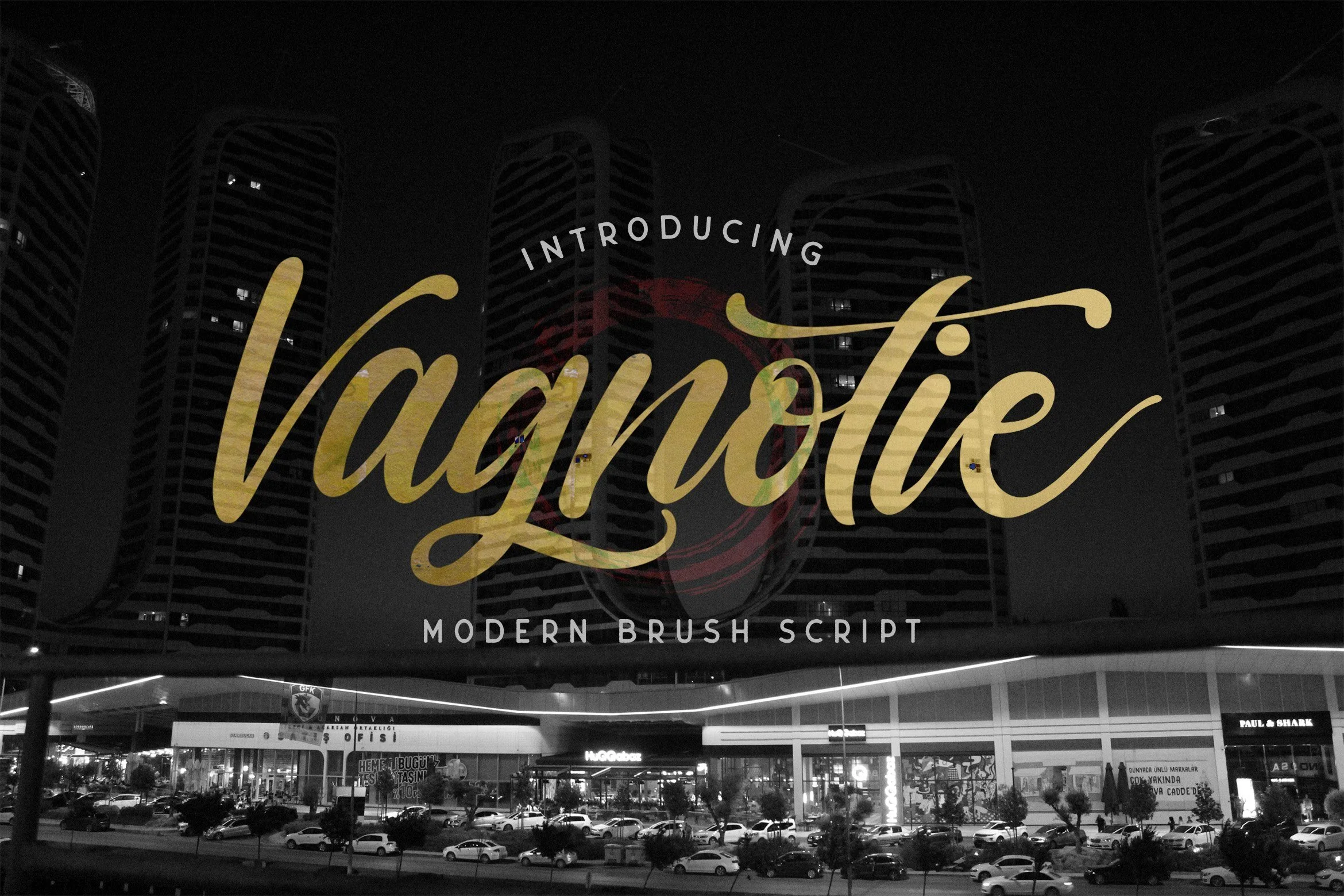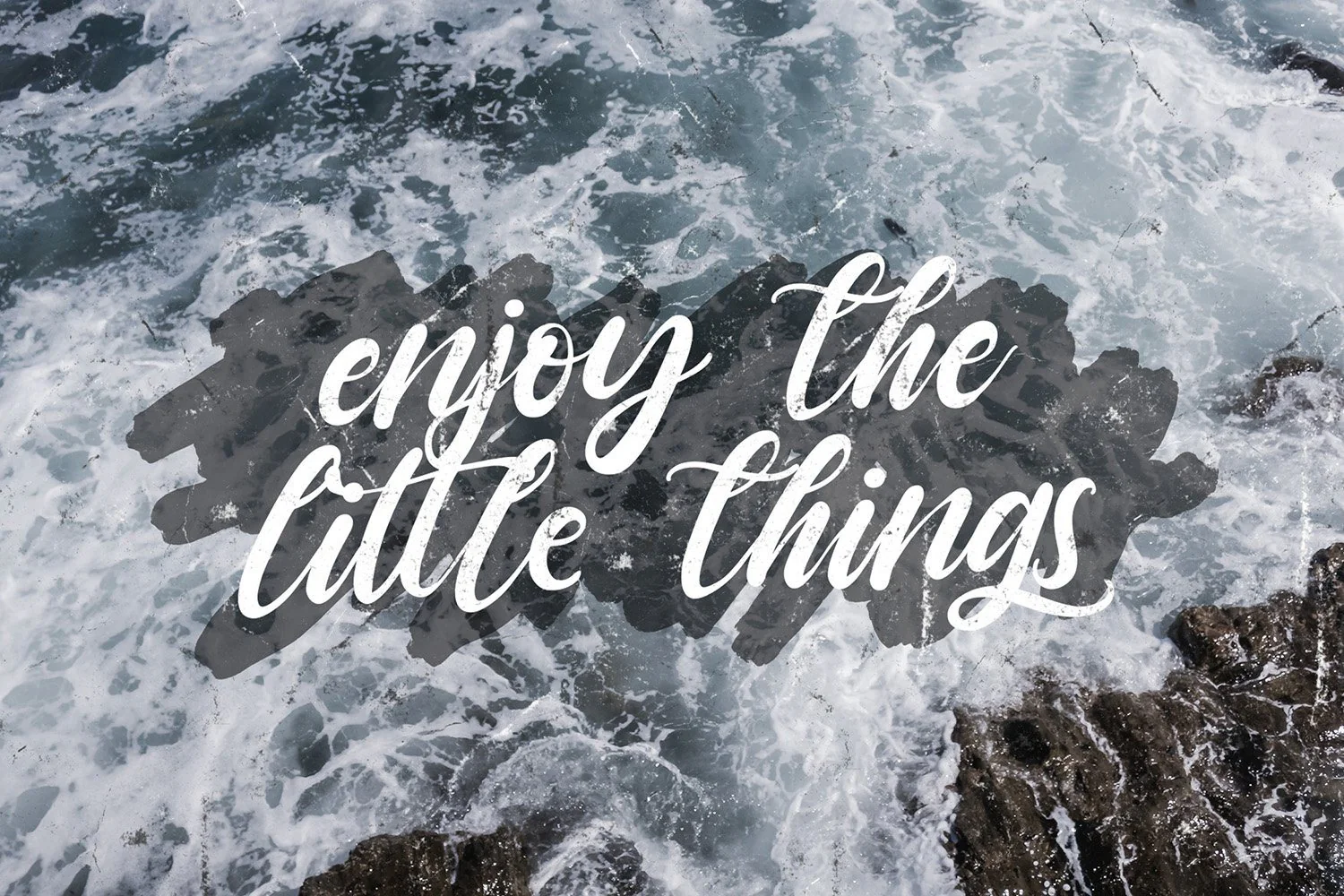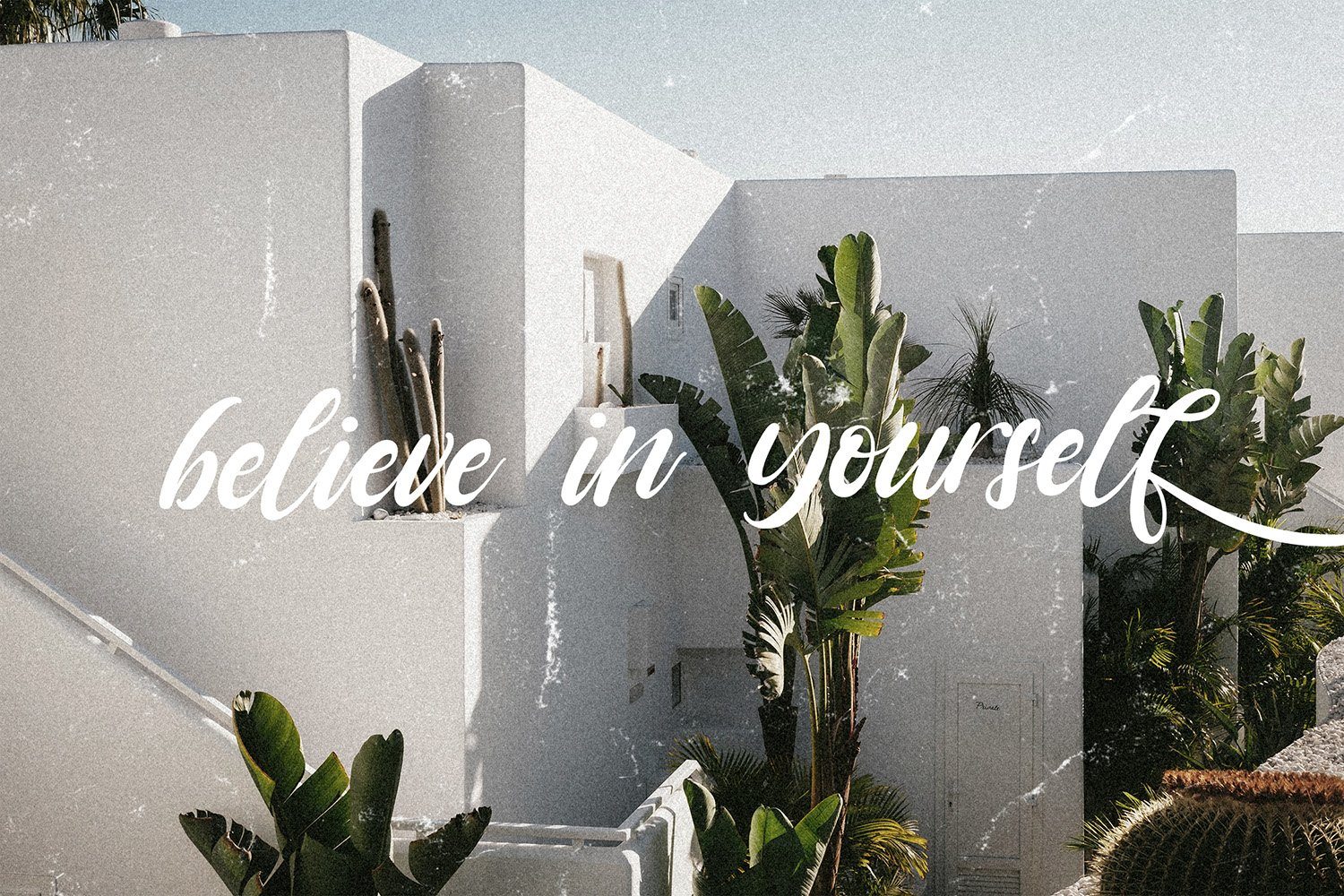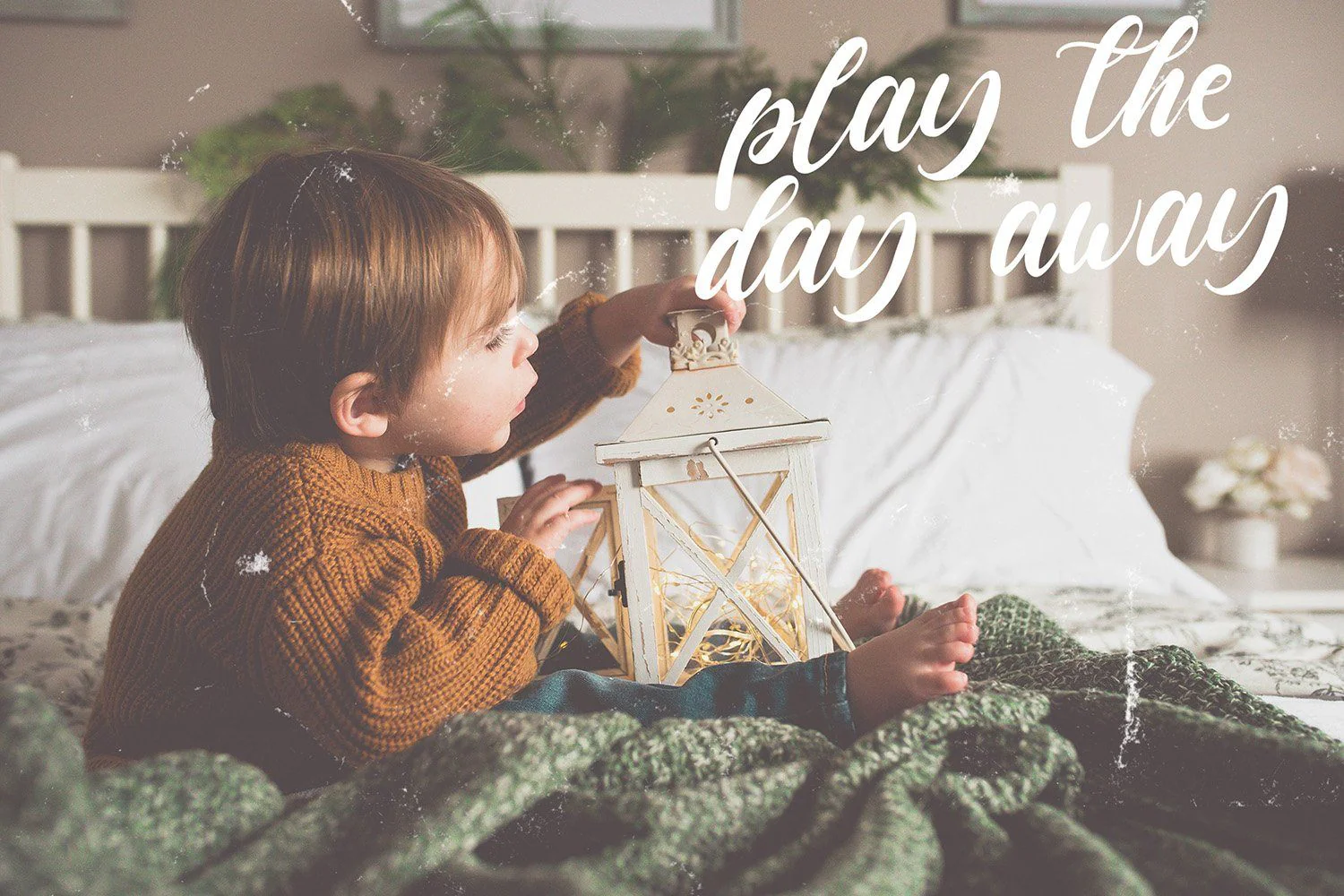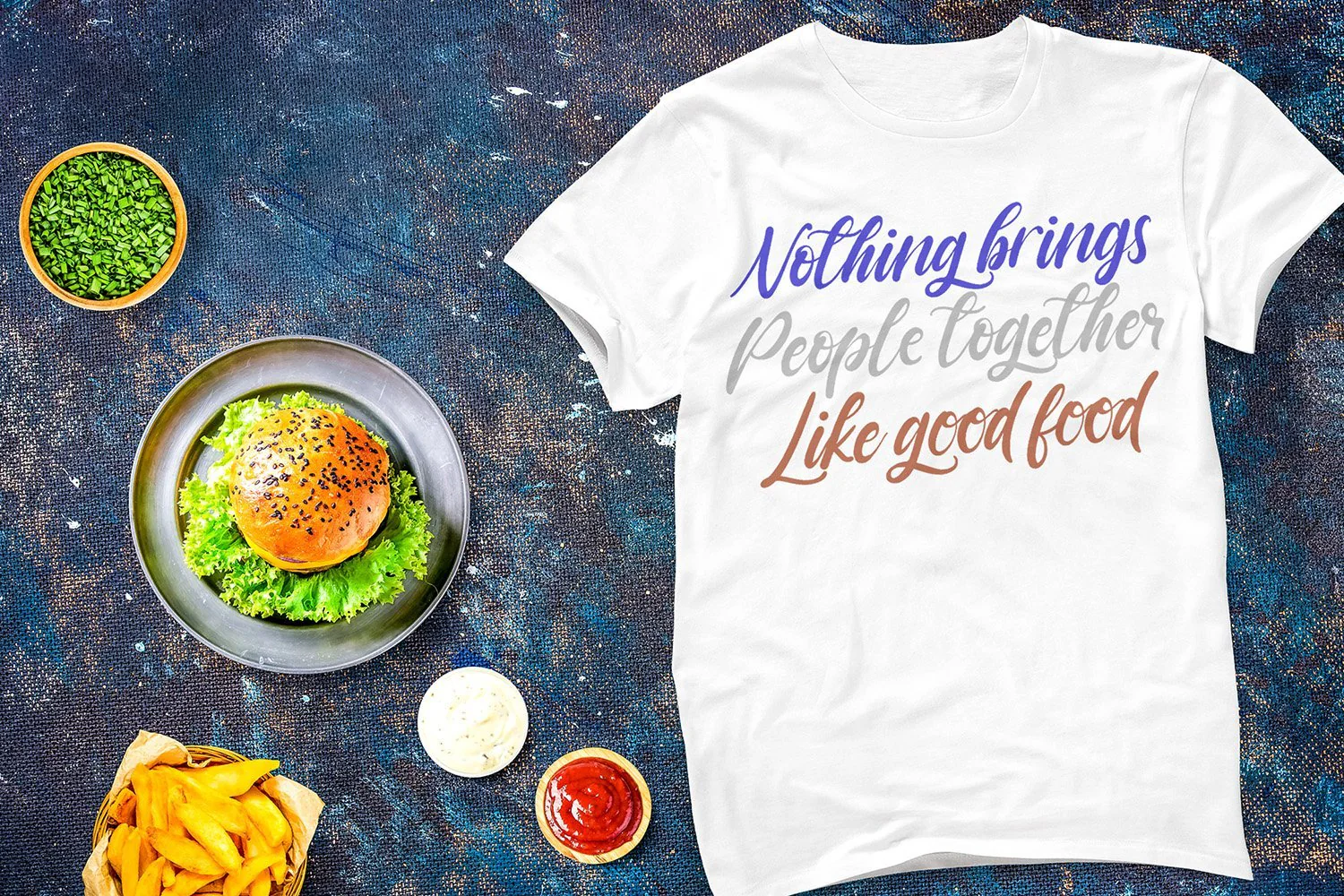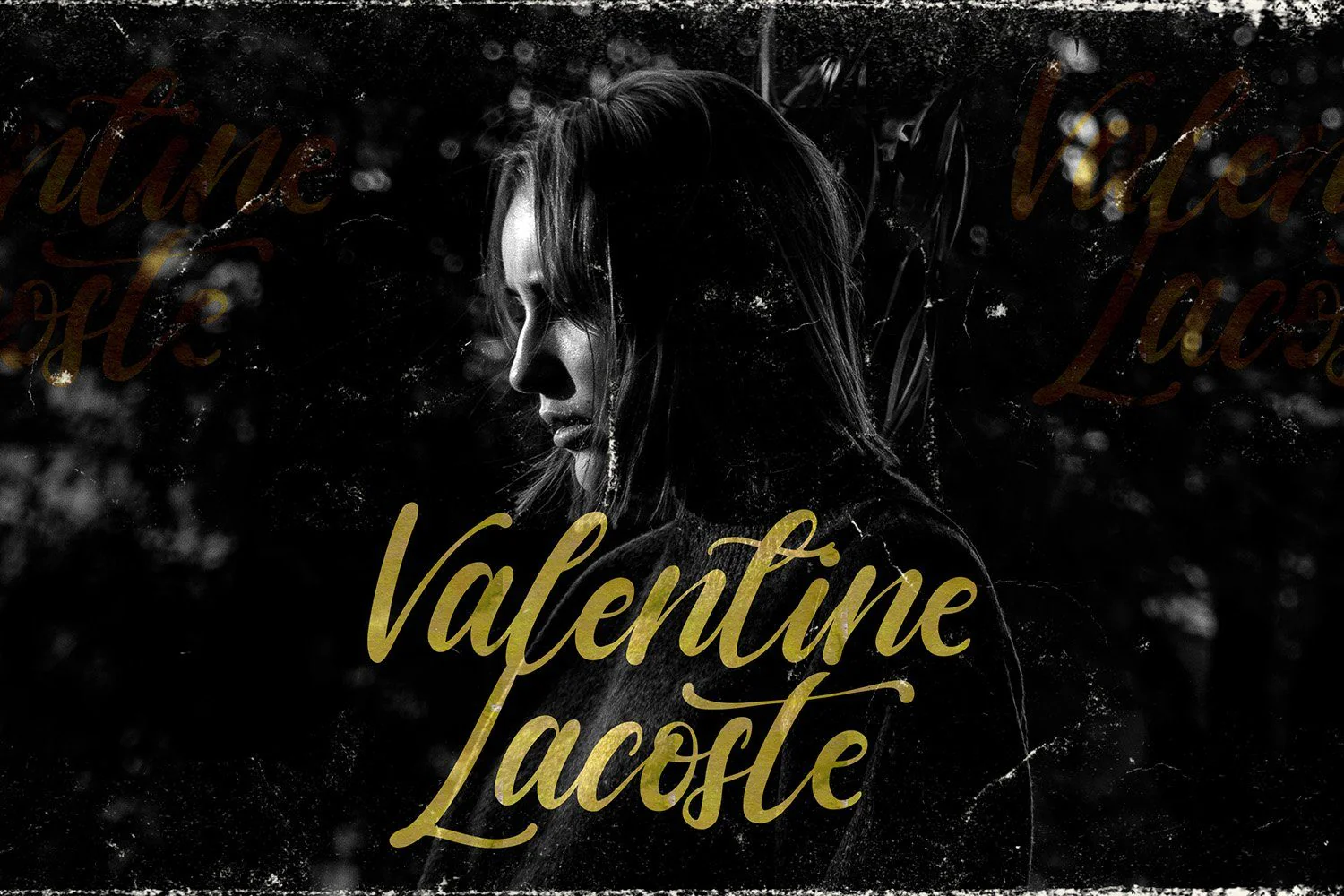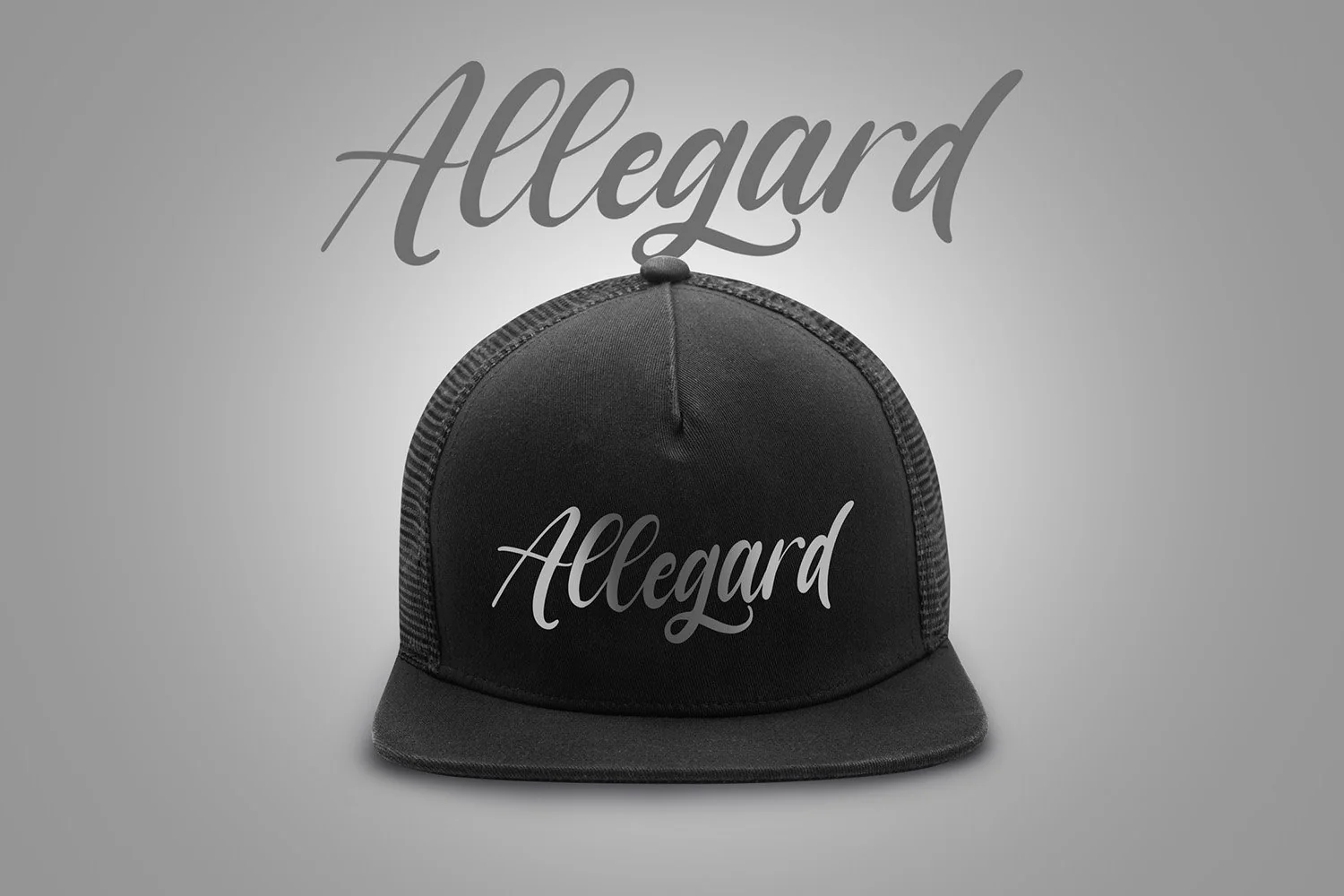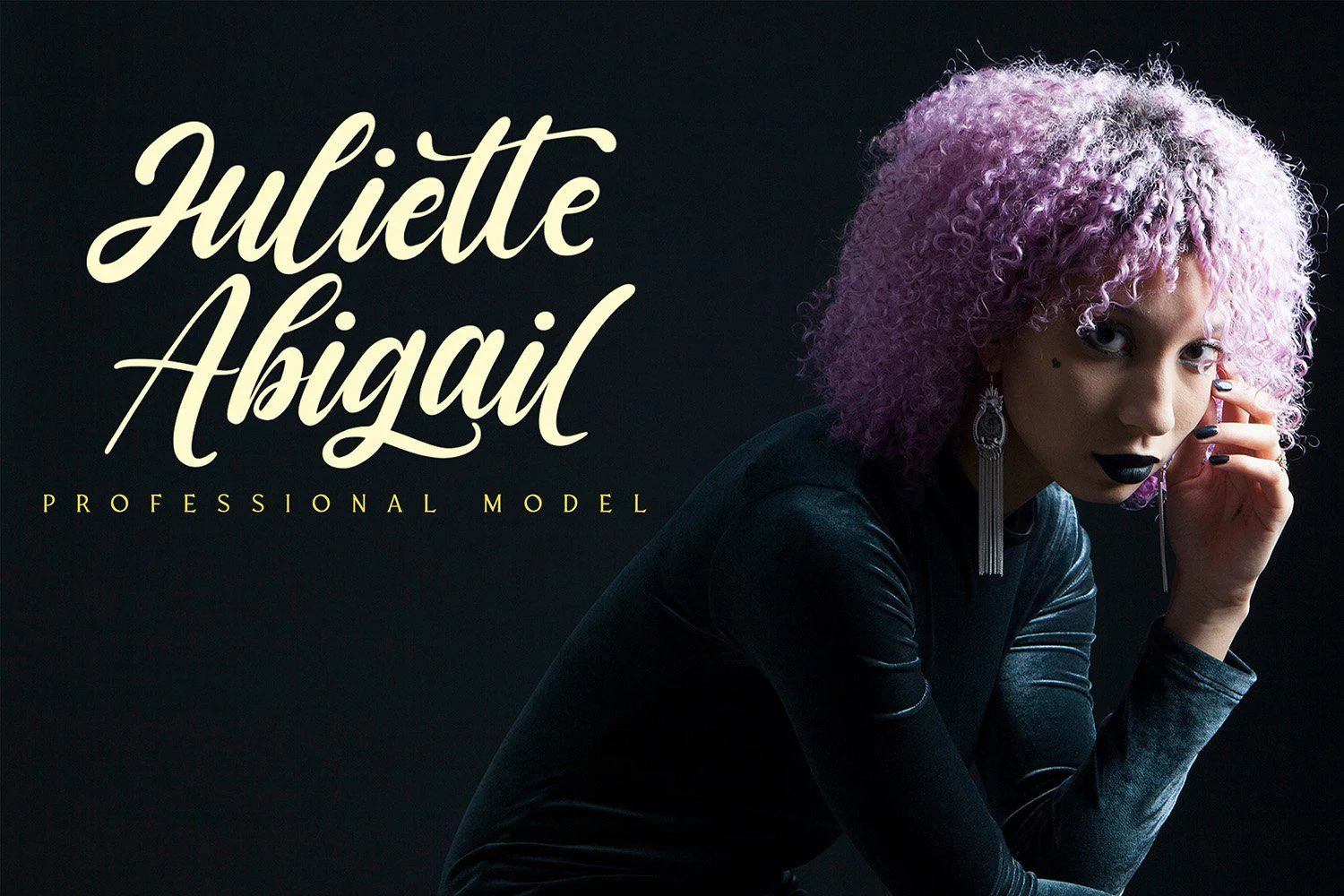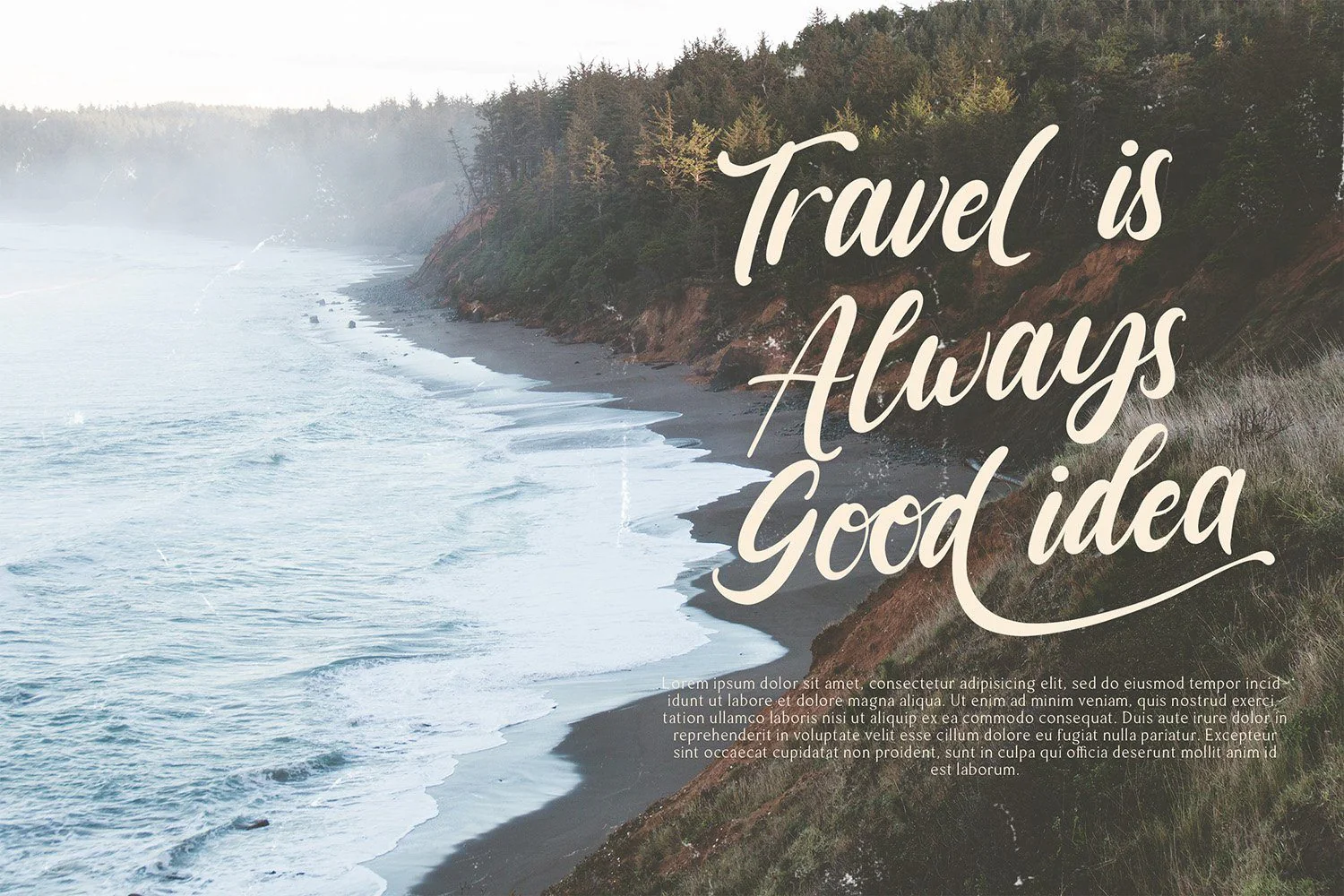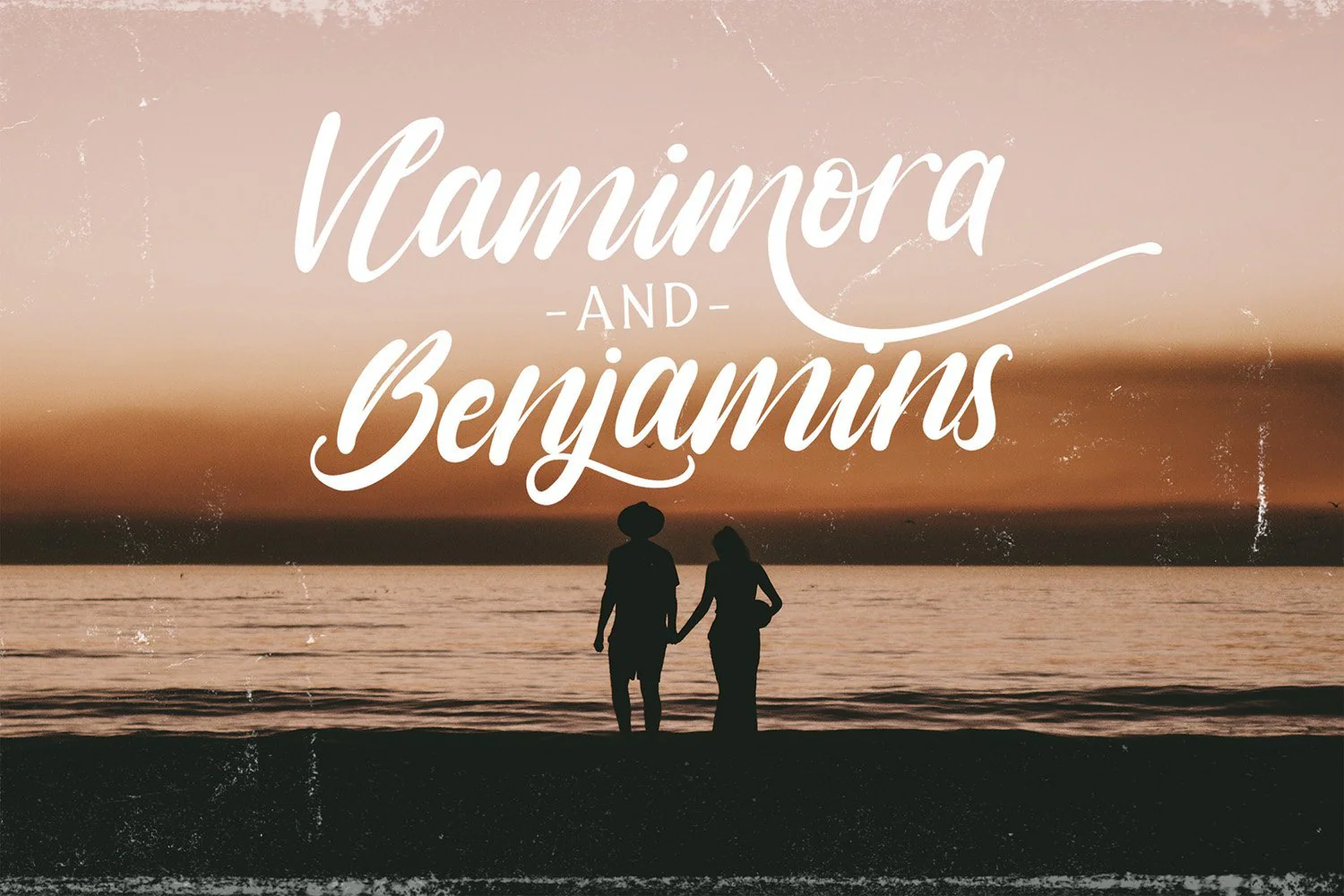
Vagnotie - Modern Brush Font
Introducing Vagnotie - Modern Brush Font
Vagnotie is a Script Font with Modern Brush Style. The Vagnotie font made with digital brush pen strokes that making this font look authentic. This font is perfect for fashion brand, wedding invitation, business card, logo brand, signature, and then calligraphy.
This Font contains Elegant, Creative, and has a Unique Concept.
Introducing Vagnotie - Modern Brush Font
Vagnotie is a Script Font with Modern Brush Style. The Vagnotie font made with digital brush pen strokes that making this font look authentic. This font is perfect for fashion brand, wedding invitation, business card, logo brand, signature, and then calligraphy.
This Font contains Elegant, Creative, and has a Unique Concept.